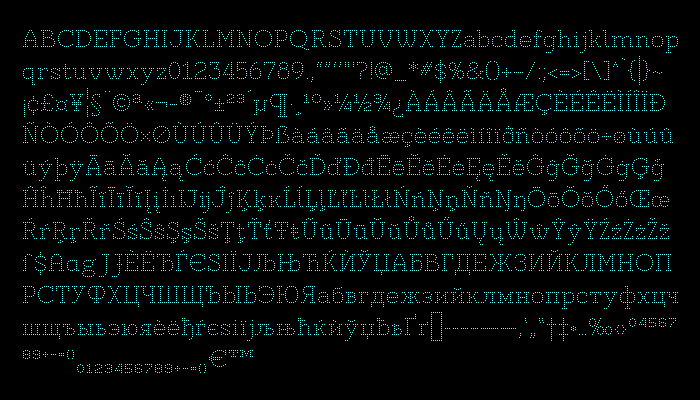
@elmoyenique: Thank you for your comments. First, you have to realize, that this is a pixel font (although it looks like a dotted font). In the case of a dotted font, you may place the dots wherever you like, and adjust their position in fine increments. As with true pixel fonts, you are restricted by the pixel matrix. Thus, you have to make concessions, because perfect curves are not attainable. In fact, curves and shapes don't really exist in this font, but isolated square pixels. Curves and shapes only emerge in the reader's mind, after connecting the dots/pixels and filling in the gaps.
There are limitations to consider if you want to experiment with a similar design. I couldn't make a simple capital A with straight legs, because it would have been too wide. The same goes with the V and the W. Furthermore, I had difficulty in making some glyphs with curves (B, S, 3, 6, 8, 9). I think their current version is acceptable. I quite like the O, C, and €, however. I plan to add more language support and OpenType features. Kerning is a must.
@four and Goatmeal: Thank you for your comments and kind ratings. Yes, this font strictly adheres to the pixel grid. I think it is a big deal. This simple rule will dictate the spacing and kerning as well: adjustments of any kind are only possible by whole pixel increments.
I've completed the small caps (a separate fontstruction); made minute adjustments to the original character set (z, Cyrillic т). I'm working on the extended Latin set (Central European support); adding ligatures, stylistic alternates, old-style figures, some arrows, and dingbats. Later I may support Greek, Katakana, and Hiragana as well. The curvier the script the better.
@Rob Meek: Thank you very much for the special mention. This font was created de novo, not as a modification of existing work. Technically, however, it was started as a clone of another pixel font, which I used merely as a template for the extent of the basic character set. Umbriel is not a scaled-up version of Mallory Pixel in any way.
The sample was truncated at 700 pixels. The font needs proper kerning. Not too shabby, though.
Smooth and elegant. I like it.
I've tried this transition for curves, but it makes the arcs thinner...
@elmoyenique: Thank you for your comments. First, you have to realize, that this is a pixel font (although it looks like a dotted font). In the case of a dotted font, you may place the dots wherever you like, and adjust their position in fine increments. As with true pixel fonts, you are restricted by the pixel matrix. Thus, you have to make concessions, because perfect curves are not attainable. In fact, curves and shapes don't really exist in this font, but isolated square pixels. Curves and shapes only emerge in the reader's mind, after connecting the dots/pixels and filling in the gaps.
There are limitations to consider if you want to experiment with a similar design. I couldn't make a simple capital A with straight legs, because it would have been too wide. The same goes with the V and the W. Furthermore, I had difficulty in making some glyphs with curves (B, S, 3, 6, 8, 9). I think their current version is acceptable. I quite like the O, C, and €, however. I plan to add more language support and OpenType features. Kerning is a must.
Beautiful work, the curves look so good in your samples, at first glance I didn't realise the pixels sit in a grid.
@four and Goatmeal: Thank you for your comments and kind ratings. Yes, this font strictly adheres to the pixel grid. I think it is a big deal. This simple rule will dictate the spacing and kerning as well: adjustments of any kind are only possible by whole pixel increments.
I've completed the small caps (a separate fontstruction); made minute adjustments to the original character set (z, Cyrillic т). I'm working on the extended Latin set (Central European support); adding ligatures, stylistic alternates, old-style figures, some arrows, and dingbats. Later I may support Greek, Katakana, and Hiragana as well. The curvier the script the better.
Basic Latin, Latin-1 Supplement, and Latin Extended-A are now fully supported.
Congrats on the double TP, Maestro!
@Rob Meek: Thank you very much for the special mention. This font was created de novo, not as a modification of existing work. Technically, however, it was started as a clone of another pixel font, which I used merely as a template for the extent of the basic character set. Umbriel is not a scaled-up version of Mallory Pixel in any way.
WOW! that's a lot of glyphs!
Your pixel fonts are really something special.
> Curves and shapes only emerge in the reader's mind, after connecting the dots/pixels and filling in the gaps.
Couldn't have said it better myself, a true psychovisual effect.
It's similar to how old video games seemed to look better on scanline CRT screens. Great work!
Somehow, you made the squares turn into literal curves.